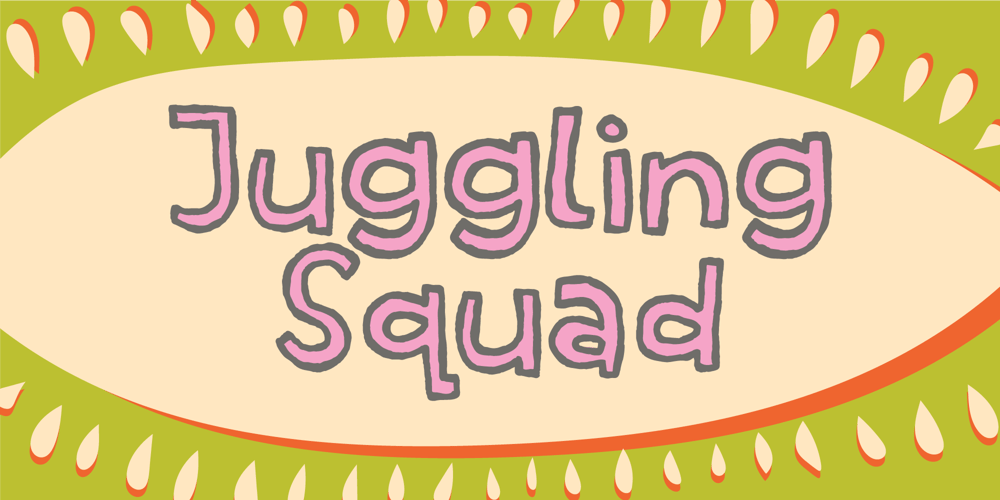
Juggling Squad
Juggling Squad font
Juggling Squad Font Family was designed by Jakob Fischer and published by Bogstav. Juggling Squad contains 2 styles and family package options. The name of the font is from the hilarious movie “21 Jump Street” – and that is where the similarity ends. While the movie is quite funny, it is also super goofy! I can’t say the same about the font, because terms like organic and organic comes to my mind. Strange, yes! And I have really no good reason for this naming, other that its an odd way to tribute this one of my all time favourite comic movies! 🙂